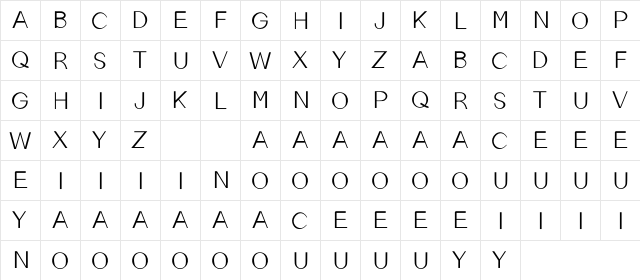
EMELIAN Regular
Design Context for EMELIAN Typeface
EMELIAN offers clean, dependable letterforms without strong stylistic allegiance, making it a practical choice for designers who need flexibility.